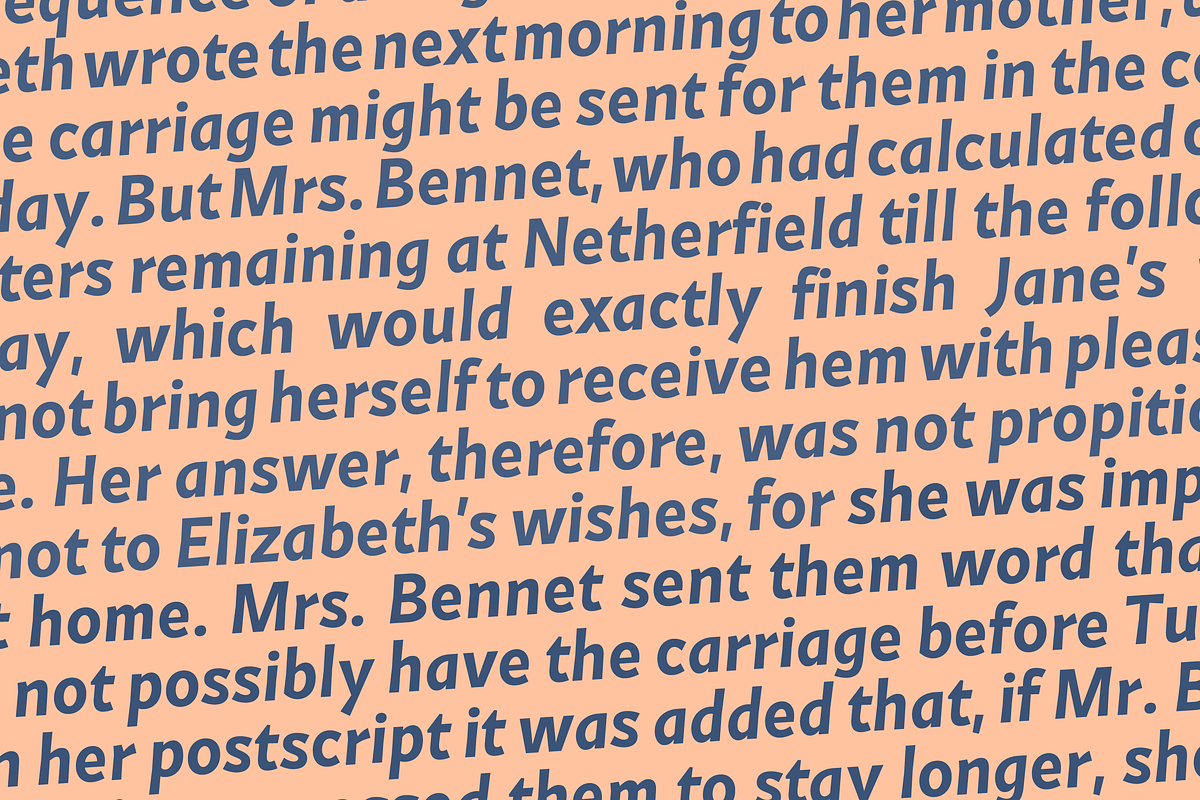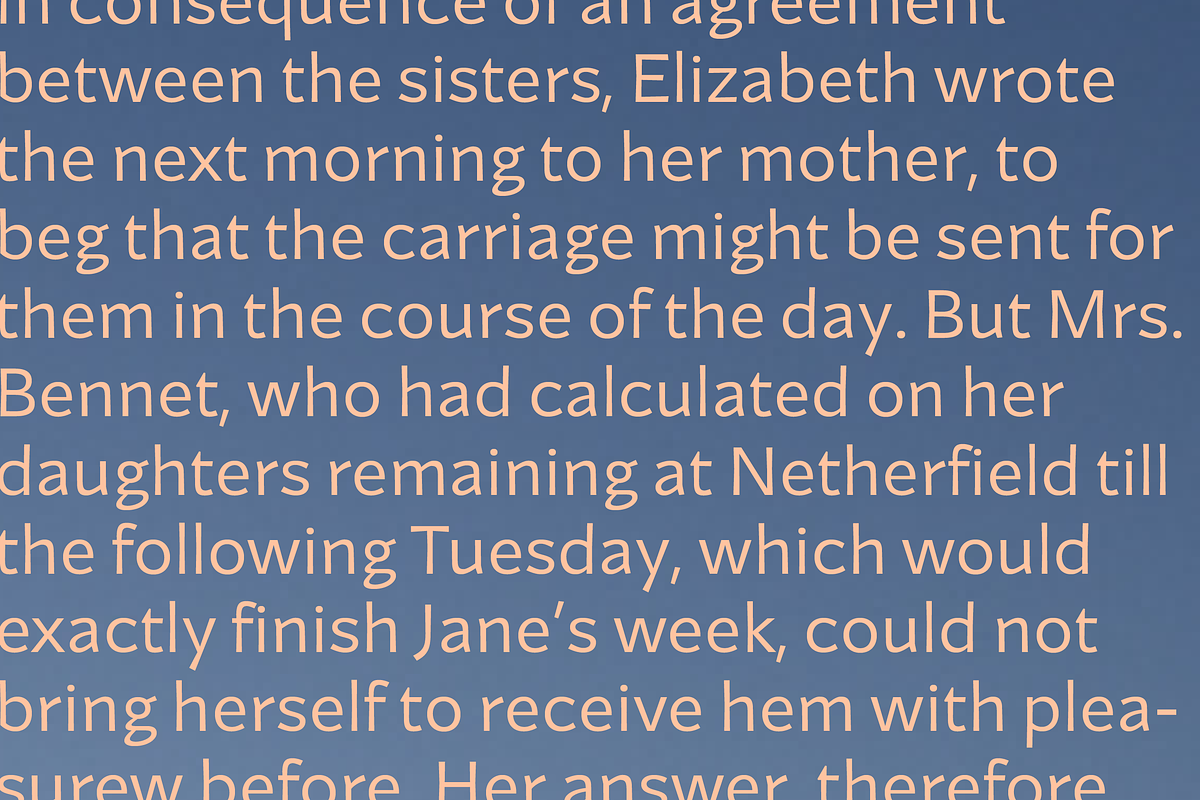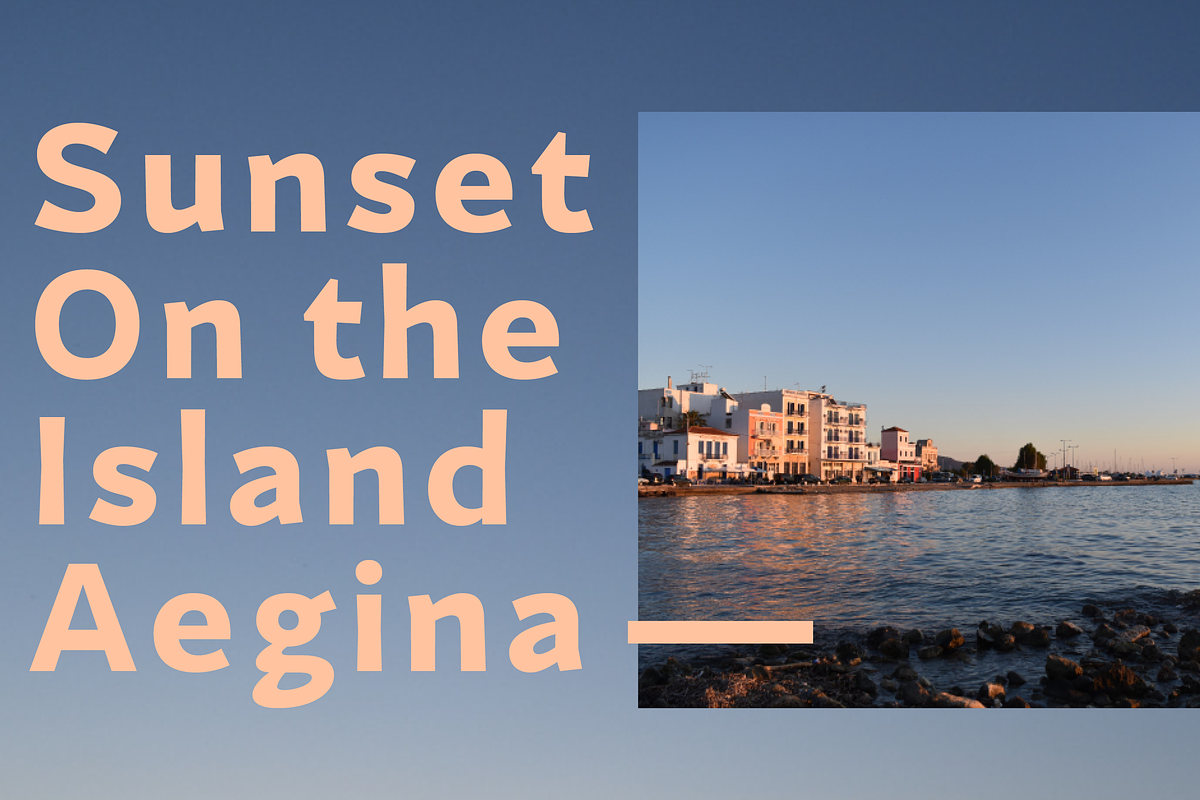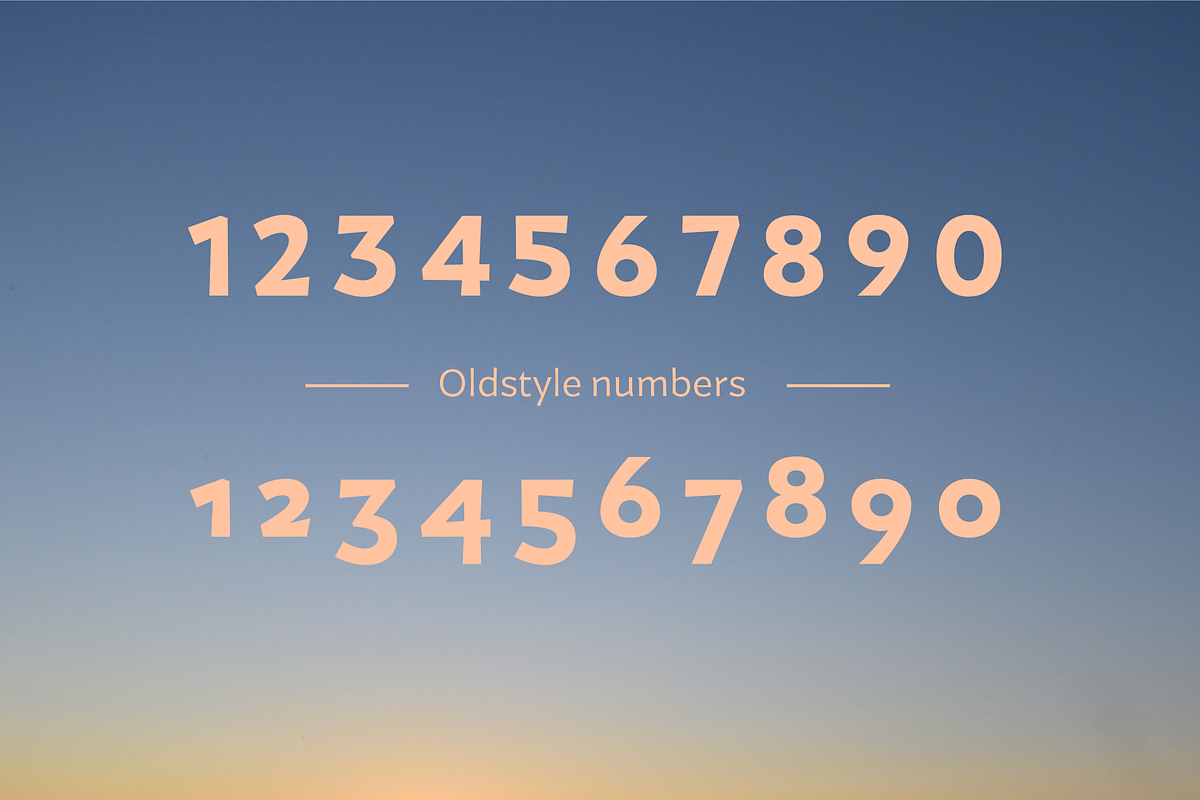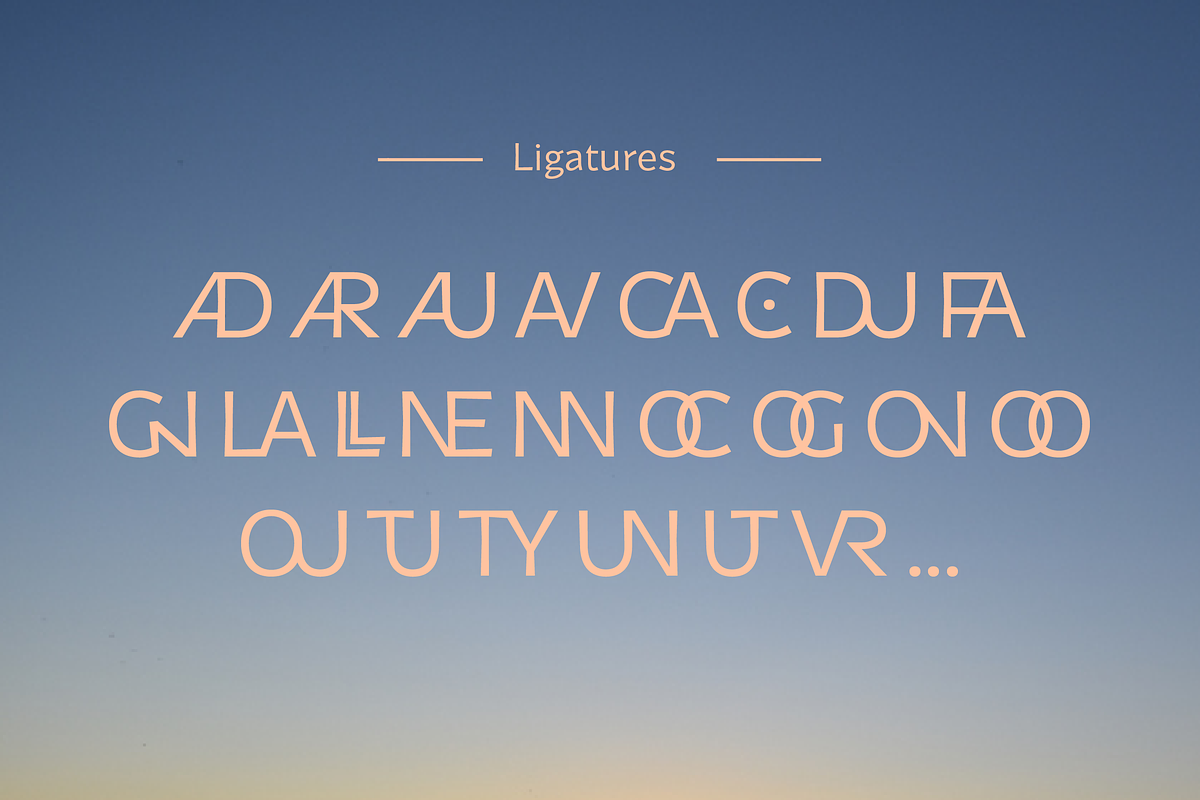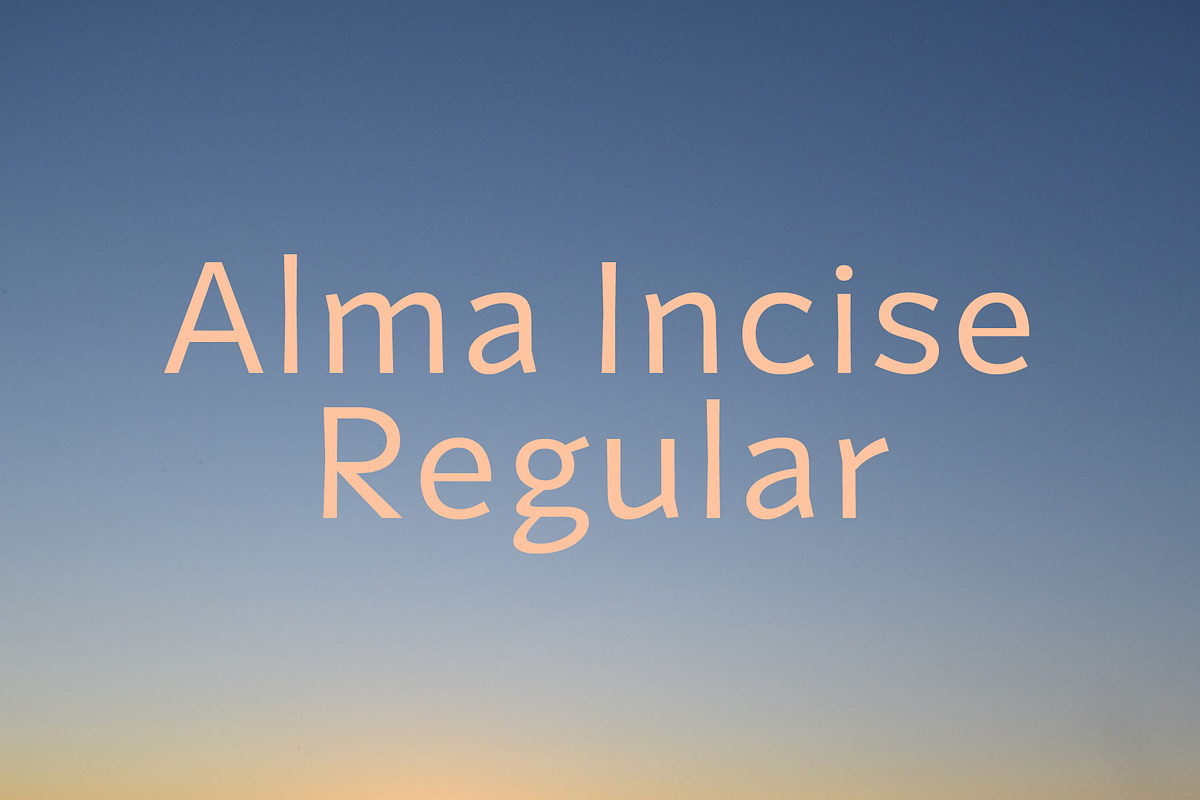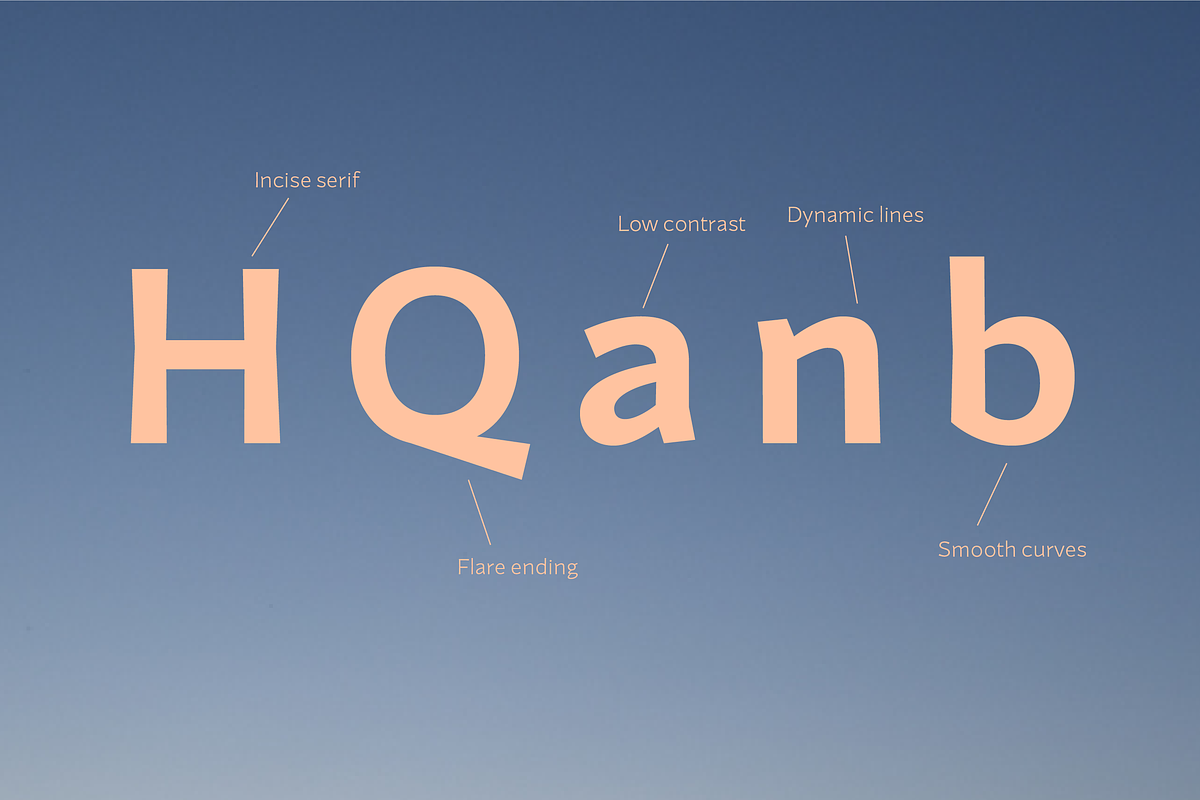
Alma Incise Regular
Alma Incise is sans serif font with flared stems. As such, it belongs to the incise genre which is historically inspired by the roman civilisation and letters carved in granite or marble. One of the major examples of it is the Trajan’s Column in Rome which inspired a font called Trajan, designed by Carol Twombly in 1989.
Alma Incise is also inspired by more brutal font such as the Albertus, designed in 1938 by Berthed Wolpe, and its shape is highly influenced by the work of the hammer. Despite this brutality and urgency due to the carving technique, the design of Alma Incise brings softness to it thanks to its low contrast and smooth curves. Alma Incise’s design includes 16 styles, from thin to black in roman and italic.